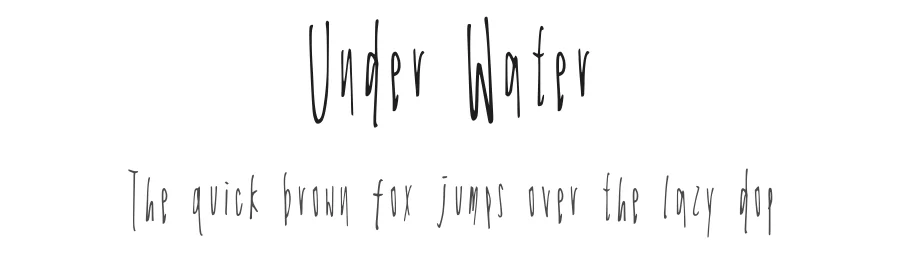
About Wannabe Font
Wannabe is a script & handwritten font designed by wannabe. It includes 87 glyphs, a regular weight, OTF (CFF) format, and 94 languages. Wannabe is free to download; check the license details on this page before commercial use. Script & handwritten fonts like Wannabe work best for wedding invitations, greeting cards, signatures, and elegant branding.
| Designer | Gorilla Rox |
Wannabe Font is a script font that shines as a display or heading face. Pair it with a clean sans-serif or serif font for body text β the contrast creates a clear hierarchy while the two styles stay balanced and easy to read.
Wannabe Font
by wannabe